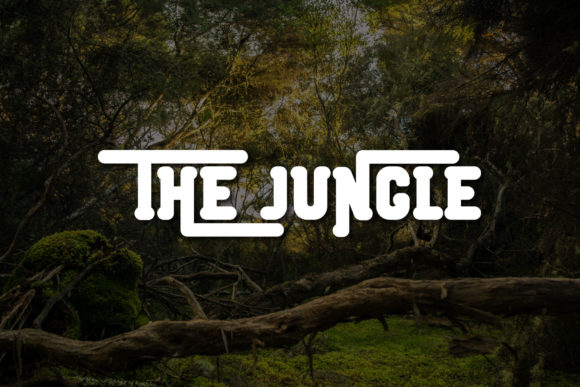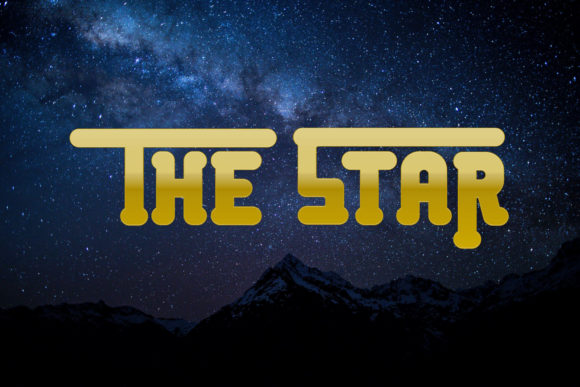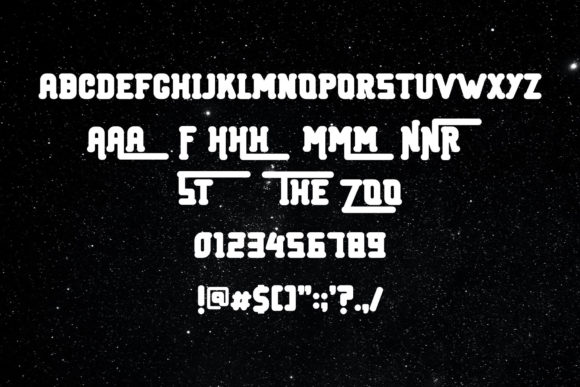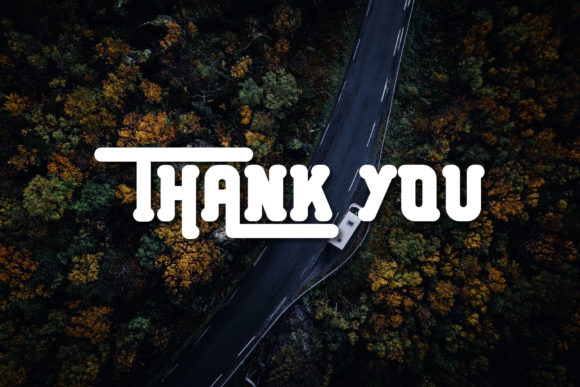
The Thrill of Discovery: Unleashing the Adventure Font
I still remember the rush of excitement when working on a project that required a bold, eye-catching font. My client wanted a design that would make their brand stand out, but I was struggling to find the perfect fit. That’s when I stumbled upon the Adventure font, and it was love at first sight! 😍 This cool, bold, and assertive display font has since become a staple in my design toolkit, and I’m excited to share its awesomeness with you.
A Honest Review: The Good and the Quirky
What I Love About Adventure Font
- ✨ Bold and Assertive: Adventure font makes a statement, perfect for designs that need to stand out.
- ✅ Trendy and Modern: Its sleek lines and curves give it a fresh, contemporary feel.
- 🎉 Versatile: Suitable for web designs, business cards, posters, and more.
While Adventure font is amazing, it’s not perfect. Here are a few things to keep in mind:
- 🤔 Limited Legibility: Due to its bold and stylized design, it may not be the best choice for long paragraphs or body text.
- ⚠️ Glyph Support: Some characters and symbols might not be included, so be sure to check the font’s capabilities before using it for specific projects.
The Story Behind Adventure Font
Adventure font was designed with the goal of creating a bold, attention-grabbing typeface that would inspire creativity and excitement. Its designer aimed to craft a font that would be perfect for designers, entrepreneurs, and anyone looking to add a touch of adventure to their brand. While the real story behind the font’s creation might be unknown, its impact on the design community is undeniable.
| Font Name | Adventure Font |
| Author | Designvector10 |
Q: What type of projects is Adventure font best suited for?
A: Adventure font is ideal for designs that require a bold, eye-catching font, such as web designs, business cards, posters, and branding materials.
Q: Is Adventure font suitable for body text?
A: Due to its bold and stylized design, Adventure font may not be the best choice for long paragraphs or body text. It’s better suited for headlines and titles.